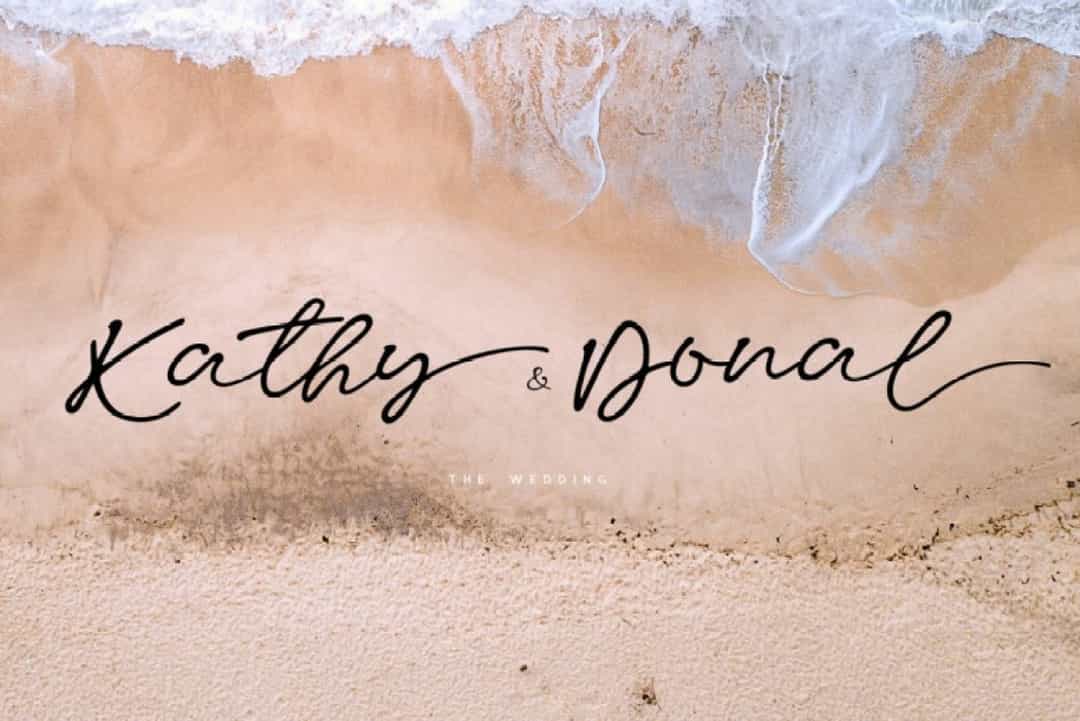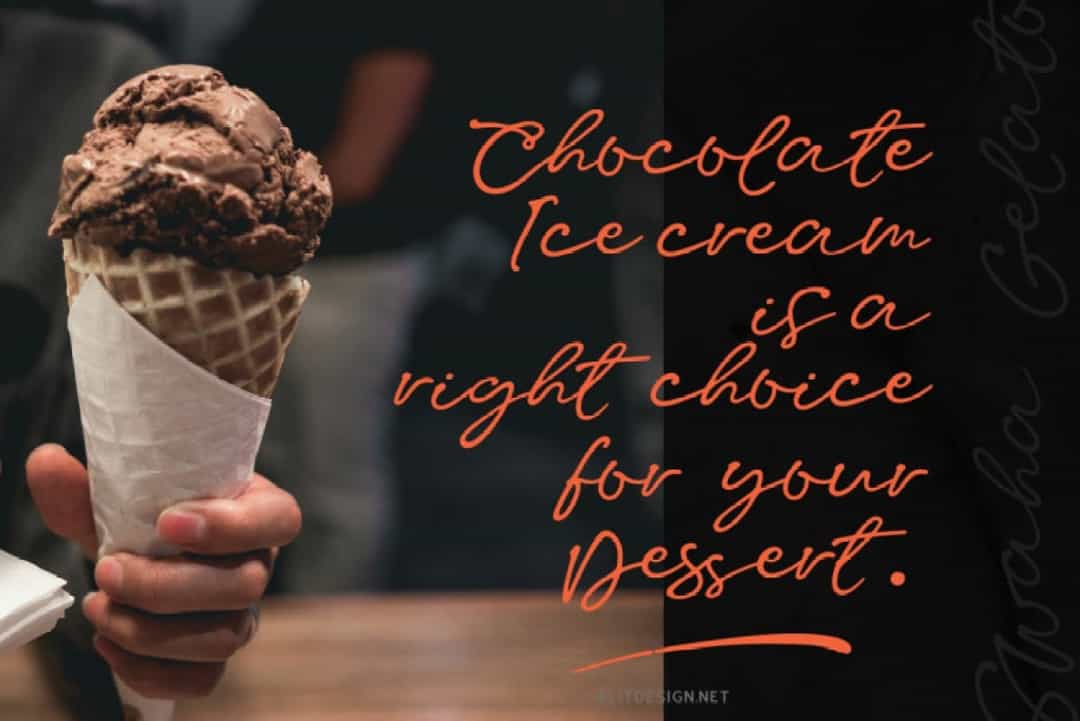
Swaha is simply a beautiful handwritten font. Thanks to the great ligatures and the big selection of the font characters, it is suitable for elegant designs like invitation cards, quotes, posts for social networks, product packaging, website design, and many others!